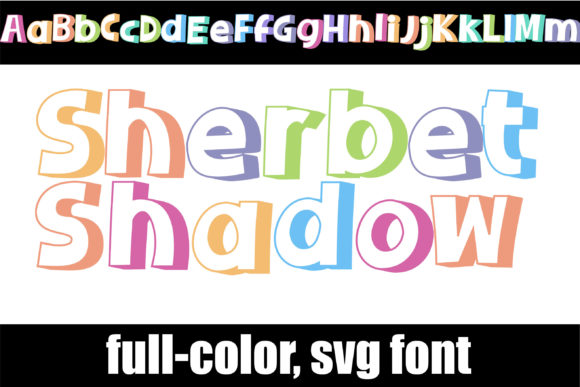
Immerse yourself in the world of Instagram with Sherbet Shadow Font - a full-color font that injects a burst of vibrancy into your content. Its blocky, white lettering captivates attention and casts a pastel shadow that adds intrigue to every word. Embrace the creativity within this font and let your social presence bloom with a touch of artistic flair.
Unleash the power of self-expression and let your Instagram profile speak volumes about your unique style. With Sherbet Shadow Font, you can now create eye-popping posts, captivating stories, and visually stunning reels that leave a lasting impression. This font is designed to make your content stand out from the crowd, attracting loyal followers who appreciate creative and visually engaging content.
Step into the world of color and transform your Instagram presence with Sherbet Shadow Font. This remarkable font is a game-changer for those who crave a vibrant and memorable online identity. Experience the joy of creating content that resonates with your audience, evokes emotions, and leaves them craving for more. Explore the endless creative possibilities and let your imagination soar with Sherbet Shadow Font.
Dive into a world of endless creative possibilities, where your words are infused with color and your ideas come alive in vibrant hues. Sherbet Shadow Font is your gateway to unlock your creative potential. Whether you're a blogger, an entrepreneur, or simply someone who wants to add a pop of color to their social presence, this font is your secret weapon.